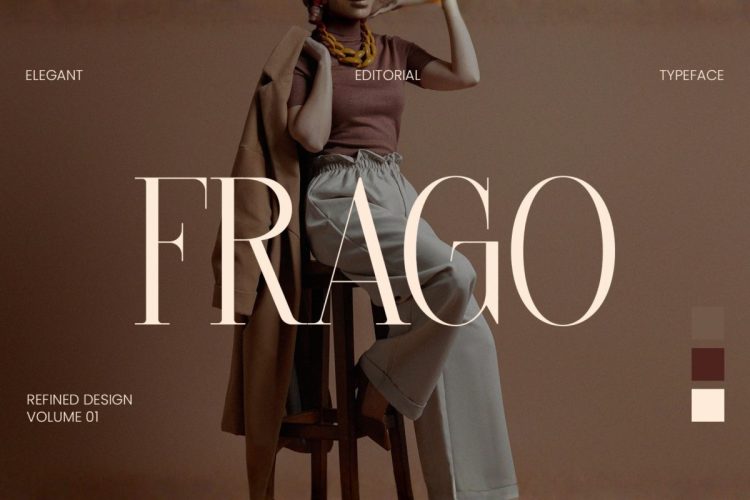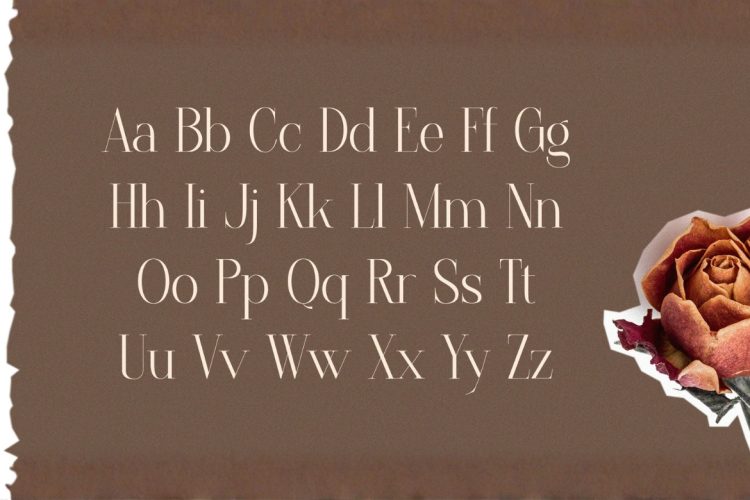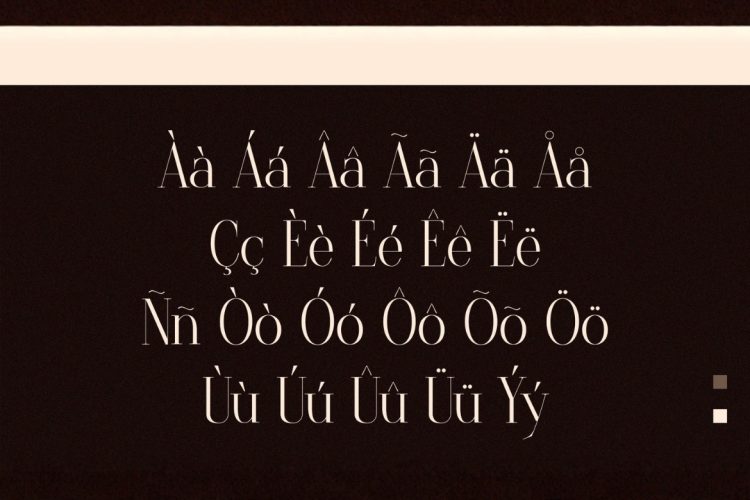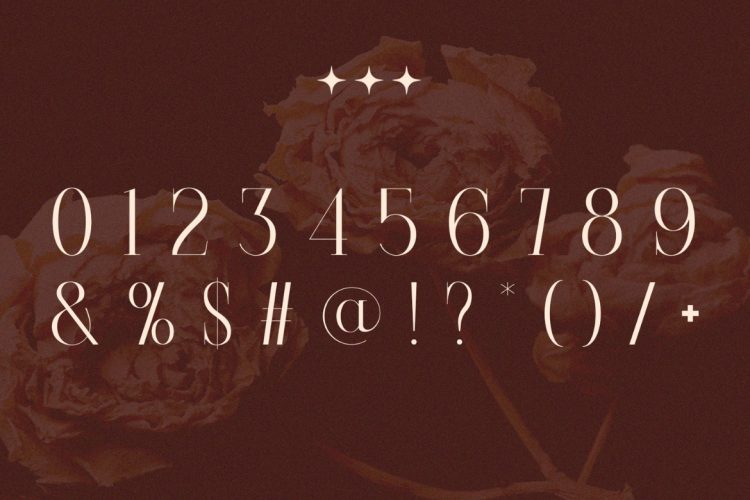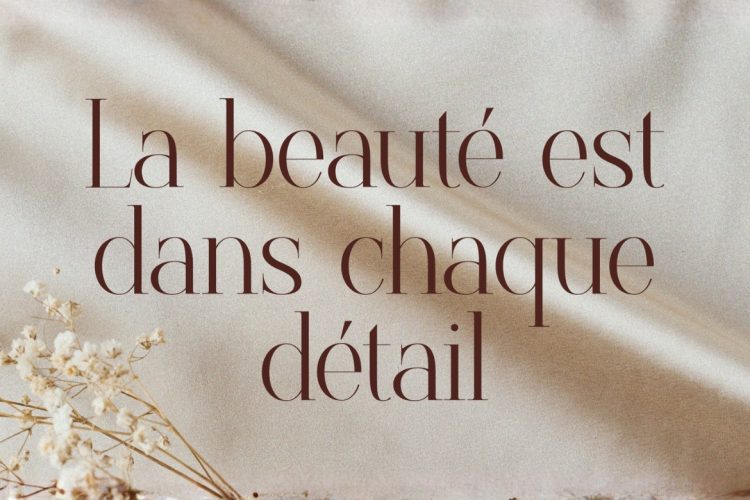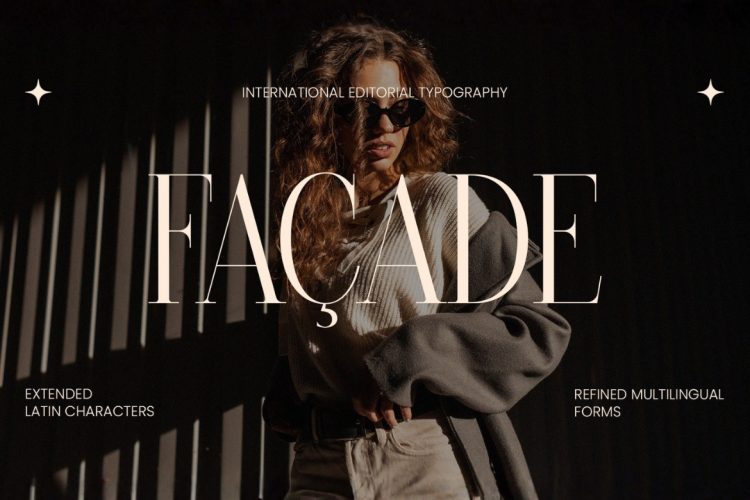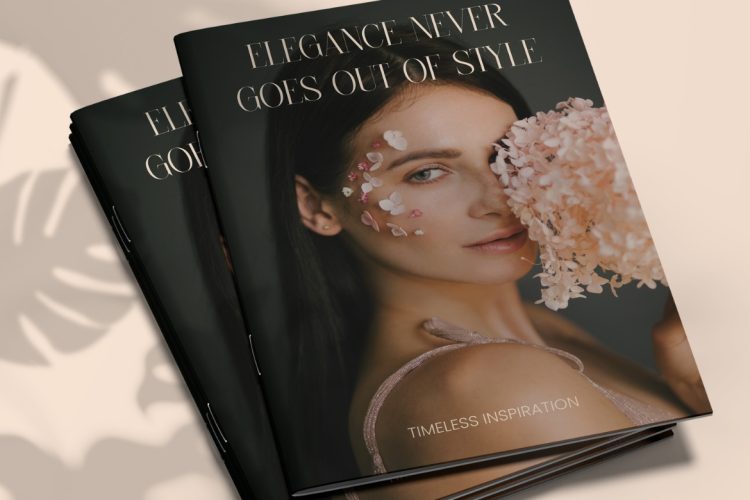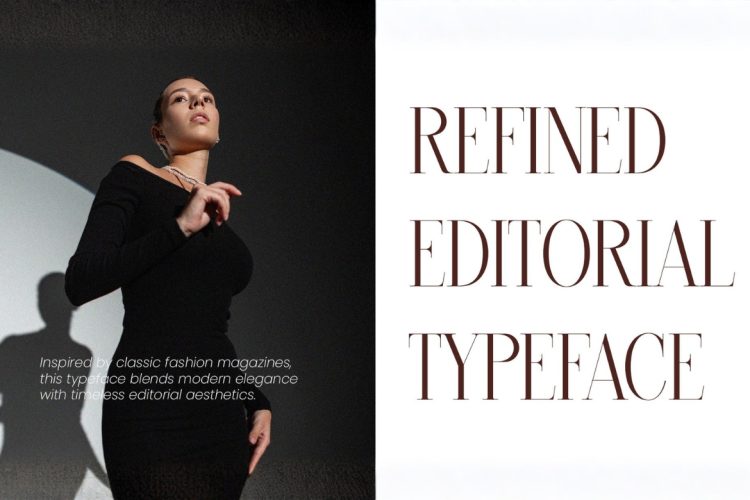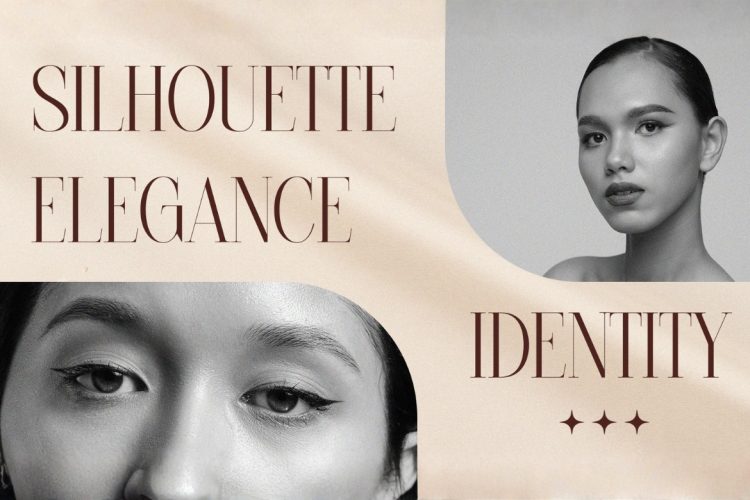
FRAGO โ Refined Editorial Serif with Timeless Style
Instagram Font Frago presents a refined serif design that blends graceful elegance with modern editorial sophistication. Its slender letterforms, balanced proportions, and delicate contrast create a stylish visual presence that immediately elevates any design. Moreover, the font carries a calm and polished personality, allowing headlines and titles to feel artistic yet professional. Because of its carefully crafted structure, Frago maintains strong readability while still delivering a distinctive and elegant typographic character. In addition, the subtle curves and refined details help designs appear more expressive and visually appealing. With support for 67 languages, this font enables creators and brands to communicate beautifully with audiences across the globe.
Frago is a modern serif display font created for designers who value elegance and clarity in their typography. First of all, its thin strokes and smooth transitions give it a refined editorial look. Furthermore, the letterforms maintain a perfect balance between sophistication and readability, which makes the font ideal for impactful headlines and stylish layouts. Because of this balance, Frago performs well across both digital and print formats. In addition, it enhances editorial spreads, branding visuals, and promotional graphics with a graceful aesthetic. As a result, designs appear more polished, artistic, and visually memorable.
Instagram Font Frago Perfect For
Frago works beautifully for designers, fashion brands, and creative studios seeking a refined visual identity. For example, it fits perfectly in fashion editorials, magazine titles, and lifestyle branding. Moreover, the font looks stunning on beauty packaging, perfume labels, and modern advertising campaigns. Likewise, it complements wedding invitations, boutique branding, and elegant social media content. Because of its graceful personality, Frago helps brands communicate style, creativity, and professionalism with ease.
Instagram Font Frago transforms simple text into elegant visual statements. Therefore, if you want typography that feels sophisticated, stylish, and timeless, Frago is the perfect addition to your creative toolkit.